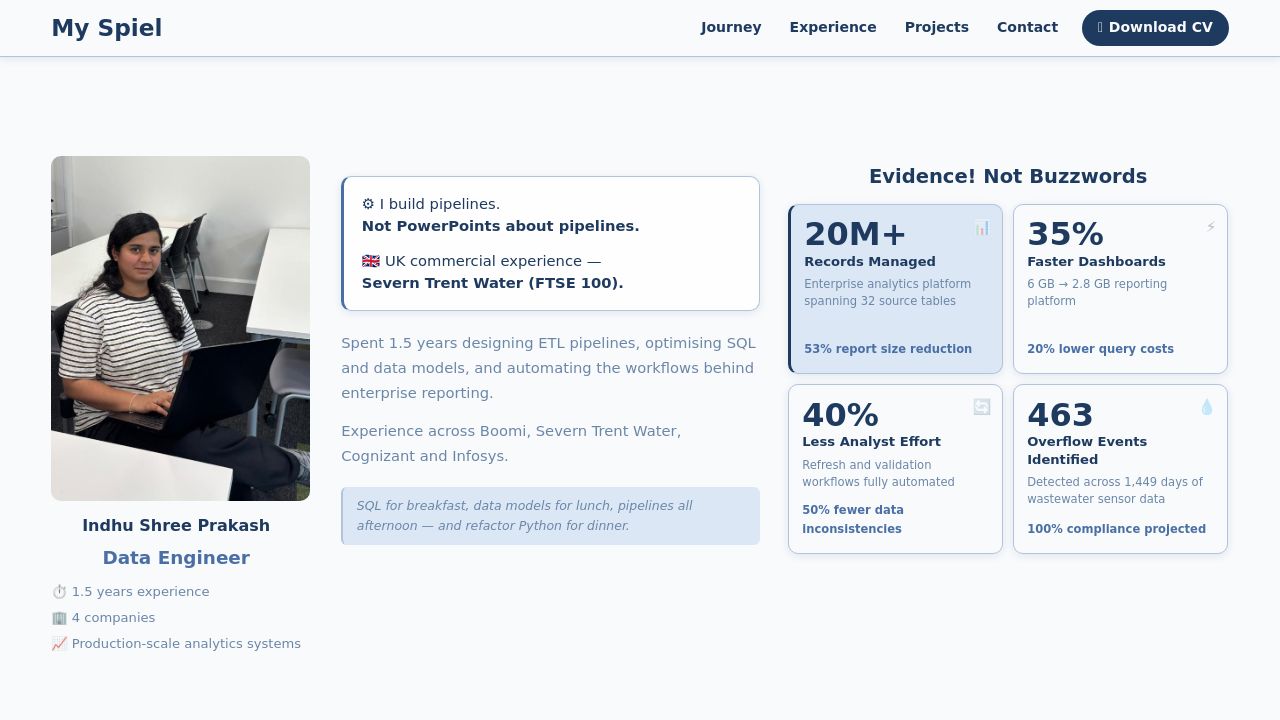
At majestic-scone-3289d6.netlify.app, Indhu Shree Prakash showcases a strong identity as a Data Engineer through a carefully curated typographic palette. The use of Segoe UI creates a clean and readable interface, ideal for presenting technical information. Complementing this, FontAwesome icons enhance visual communication and user experience. These fonts collectively reflect a commitment to clarity and functionality, appealing to professionals in data engineering and analytics.
The primary fonts used on majestic-scone-3289d6.netlify.app are Segoe UI, FontAwesome, Font Awesome 5 Brands, Font Awesome 5 Free, Font Awesome 6 Brands, and Font Awesome 6 Free.
Segoe UI is known for its clarity and legibility in digital displays, making it a great choice for websites that require a straightforward presentation, unlike some decorative fonts.
FontAwesome provides various styles and weights including the regular weight (400) for Font Awesome 5 and 6, and a bold weight (900) for Font Awesome 5 Free, catering to diverse design needs.
There are no specified fallback fonts for majestic-scone-3289d6.netlify.app, indicating a reliance on the primary font choices for consistent branding.